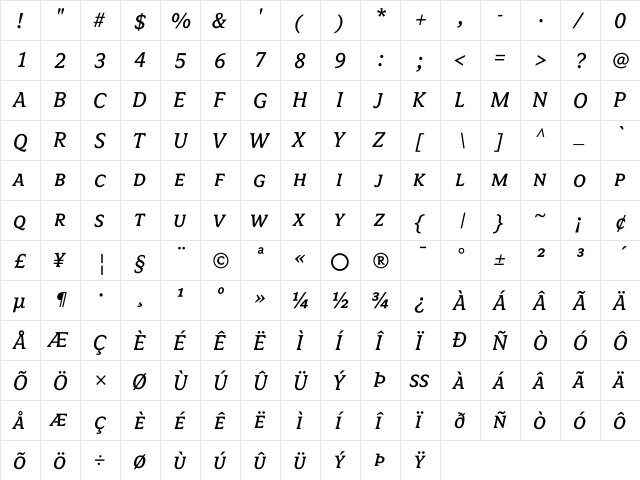
Avance Regular SC Italic Font Preview
Avance Regular SC Italic
Design Context for Avance Typeface
Avance takes a measured approach to typography — its balanced proportions and neutral character make it a reliable workhorse for both digital and print work. The slanted form adds forward momentum and visual energy.
Pro Tip: Try Avance for annotation and caption copy alongside an upright companion — the contrast in angle creates a dynamic but ordered typographic system.